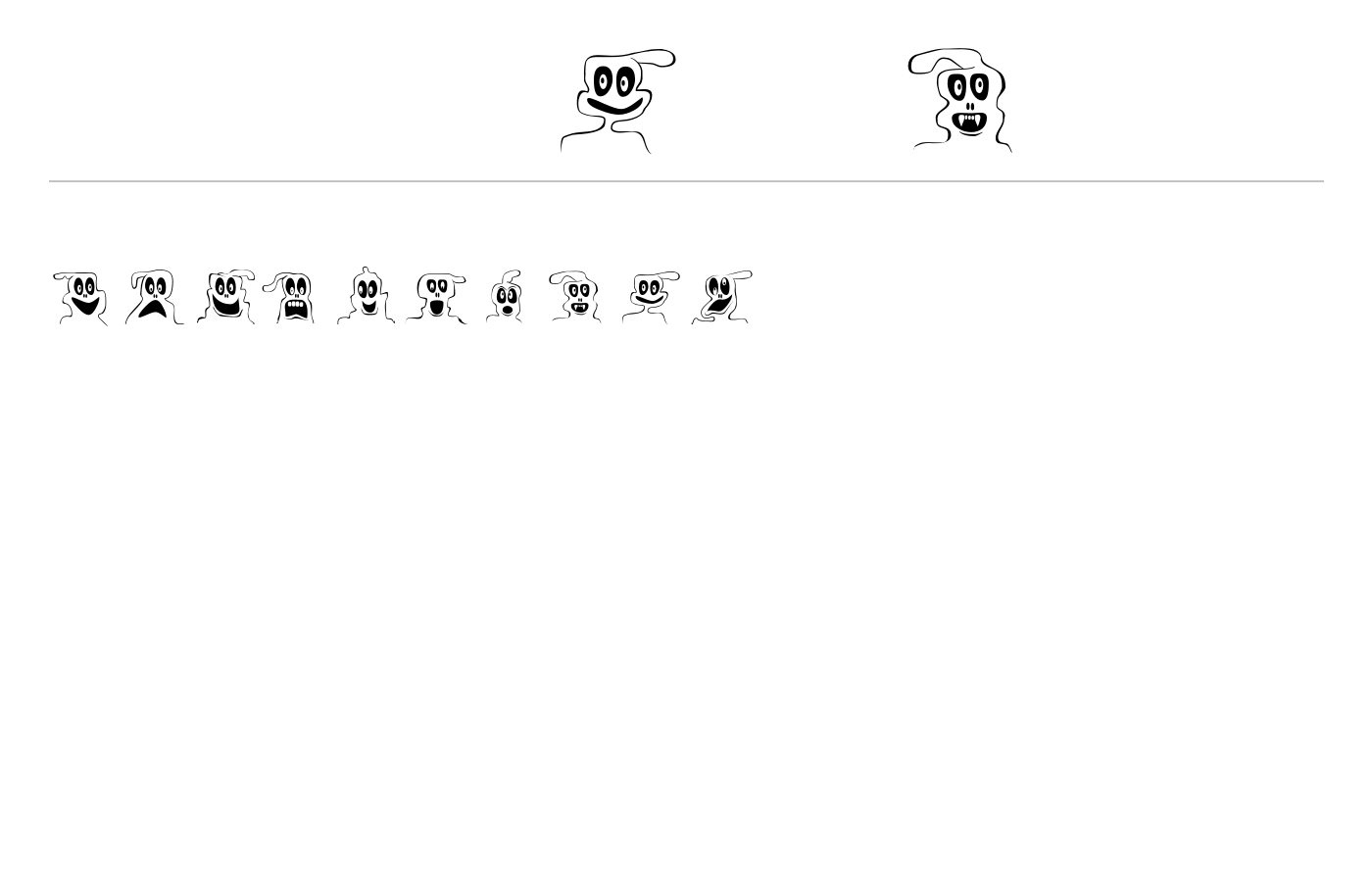
FE 10 Lil Ghosts is a playful, decorative font featuring whimsical ghost shapes instead of traditional letterforms, making it highly unique and eye-catching. Its quirky, hand-drawn style with expressive faces conveys a fun, spooky vibe ideal for Halloween-themed designs, children’s projects, or creative branding that seeks to stand out with personality. This font works best for headlines, logos, and display uses where a bold, quirky impression is needed rather than for body text.
FE 10 Lil Ghosts Font
About FE 10 Lil Ghosts Font
| Font family | FE 10 Lil Ghosts Font |
| Designer | Samuel Marcius |